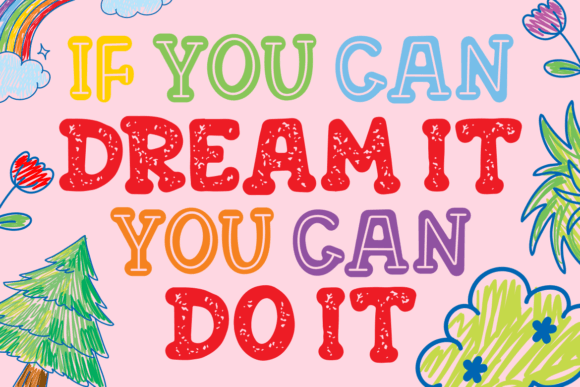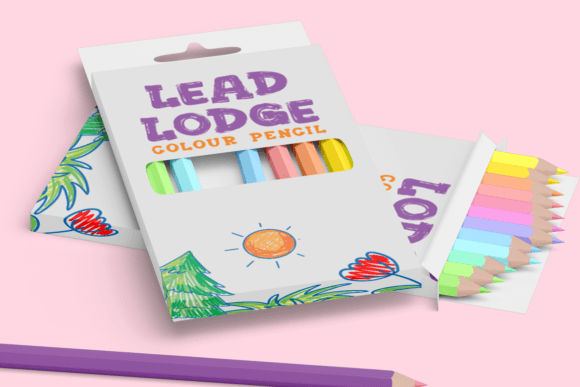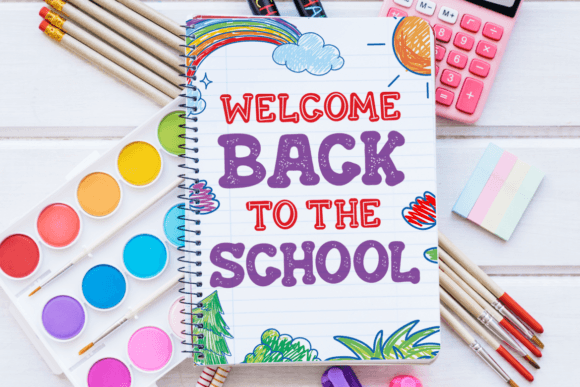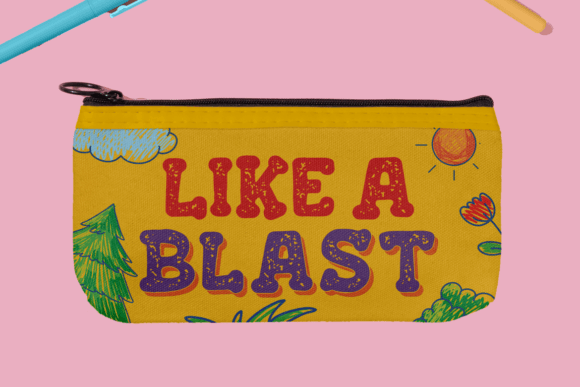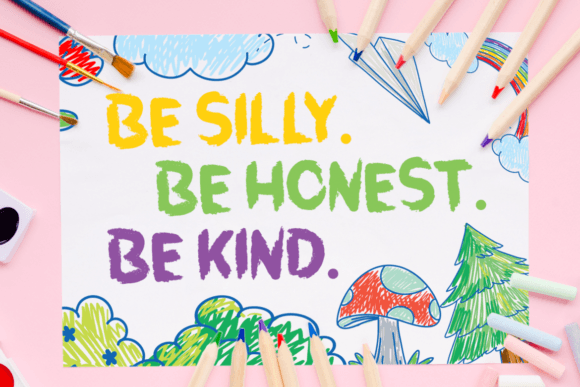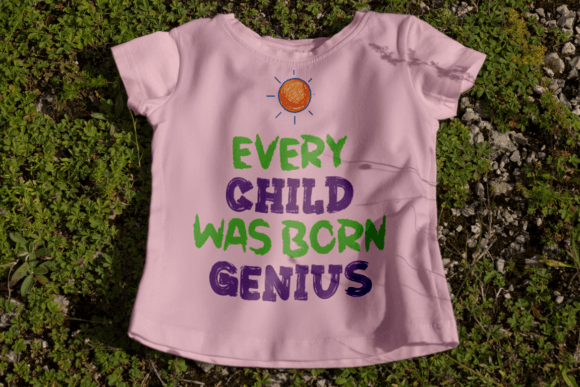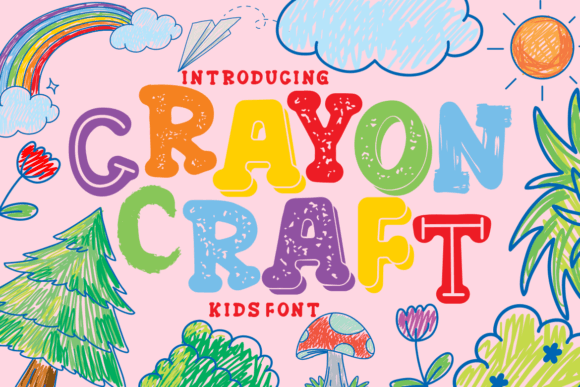
Crayon Craft Font: Unleashing the Joy of Childhood Creativity in Design
Remember the carefree days of childhood, when imagination knew no bounds and creativity was encouraged in every form? The Crayon Craft Font is a delightful tribute to that era, bringing back the playful, hand-drawn designs that characterized our early years. Inspired by the textures of chalk and crayons, this font is a beautiful reflection of the uneven yet charming forms that are synonymous with youthful doodling.
The Essence of Crayon Craft
Crayon Craft – Kids Font is more than just a typeface; it’s an experience that captures the spirit of uninhibited childhood creativity. Every letter in this font is thoughtfully designed to resonate with the authenticity of a child’s drawing, bringing a pleasingly idiosyncratic feel to your projects. The result is a font that is not only visually appealing but also highly engaging, making it perfect for designs that aim to connect with a younger audience.
Design Features and Flexibility
One of the standout features of Crayon Craft is its multiple styles, which offer designers the flexibility to mix and match, creating unique and visually appealing text. Whether you’re working on a logo, branding, children’s themes, crafting projects, or invitations, this font provides the perfect tool to add a playful touch. The chalk and crayon-inspired textures give the font a distinctive look that can be used in a variety of mediums, from packaging and poster titles to business cards and greeting cards.
Bringing Childhood Joy to Design
Crayon Craft is more than just a font; it’s an engaging trip back to the joyous, unrestricted imaginative world of childhood. It’s about embracing the imperfections and irregularities that make hand-drawn designs so charming. By incorporating this font into your projects, you’re not just adding a playful element; you’re also evoking a sense of nostalgia and wonder. Whether you’re a designer looking for a unique font to add to your collection or a crafter seeking inspiration for your next project, Crayon Craft is sure to delight.
The versatility of Crayon Craft is one of its most appealing features. This font comes alive in a variety of mediums, making it an excellent choice for designers and crafters who work across different platforms. Here are some of the many ways you can use Crayon Craft:
- Logos and Branding: Add a playful touch to your brand identity with a custom logo that stands out.
- Children’s Themes: Create engaging and fun designs for kids’ products, from toys to educational materials.
- Crafting Projects: Perfect for handmade crafts, DIY projects, and other creative endeavors.
- Invitations: Make your invitations, party cards, and greeting cards more personalized and special.
- Packaging: Stand out on store shelves with eye-catching packaging that appeals to both kids and adults.
- Poster Titles: Add a bold, playful touch to your poster titles and headings.
- Business Cards: Create memorable business cards that reflect your brand’s personality.
Why Choose Crayon Craft?
With so many fonts available, why choose Crayon Craft? Here are a few reasons why this font stands out:
- Unique Design: The hand-drawn, crayon-inspired design gives Crayon Craft a unique look that’s hard to find elsewhere.
- Highly Versatile: Use it across various mediums and projects, from digital designs to print materials.
- Emotional Connection: The font’s playful nature helps create an emotional connection with your audience, making your designs more engaging.
- Easy to Use: With multiple styles to choose from, you can easily mix and match to create the perfect look for your project.
Crayon Craft Font is a delightful addition to any designer’s toolkit, offering a playful and charming way to bring childhood creativity into your projects. Its unique design, versatility, and emotional appeal make it an excellent choice for a wide range of applications. Whether you’re a seasoned designer or a crafty enthusiast, Crayon Craft is sure to inspire your next creative project. So why not take a trip back to the joyous world of childhood and let Crayon Craft bring a touch of whimsy and wonder to your designs?